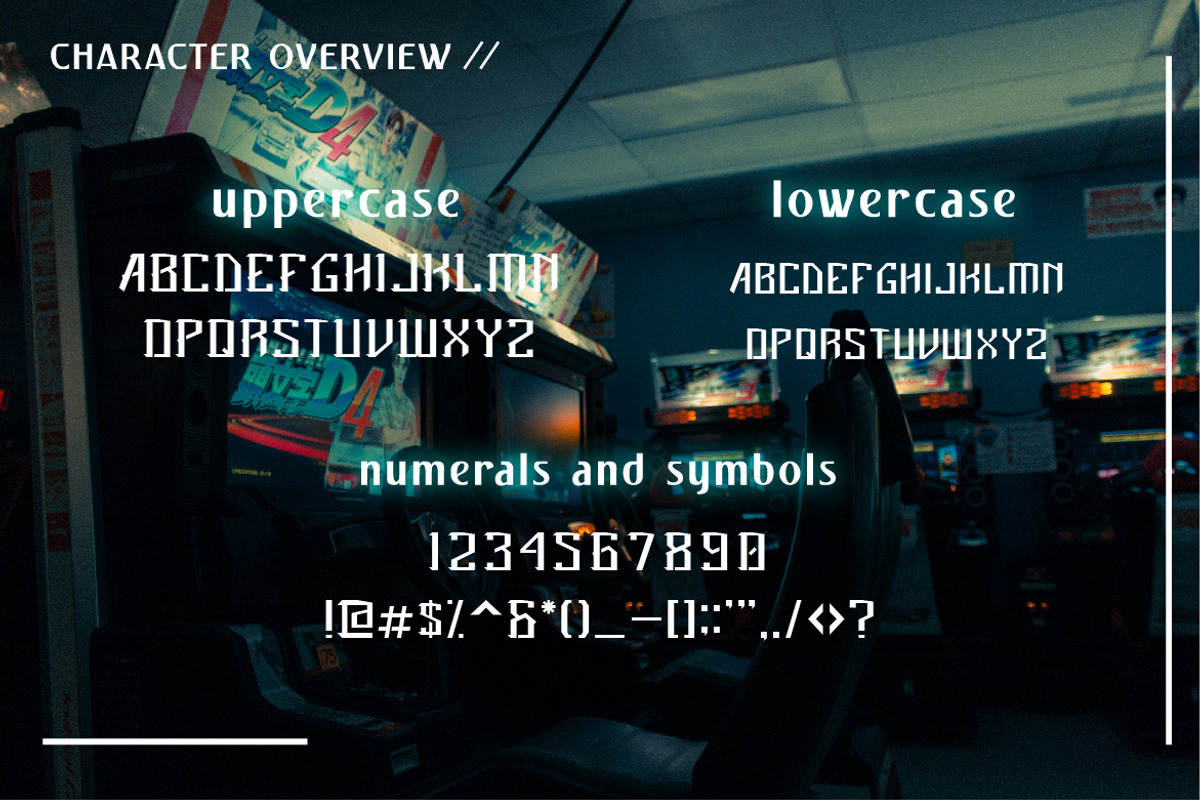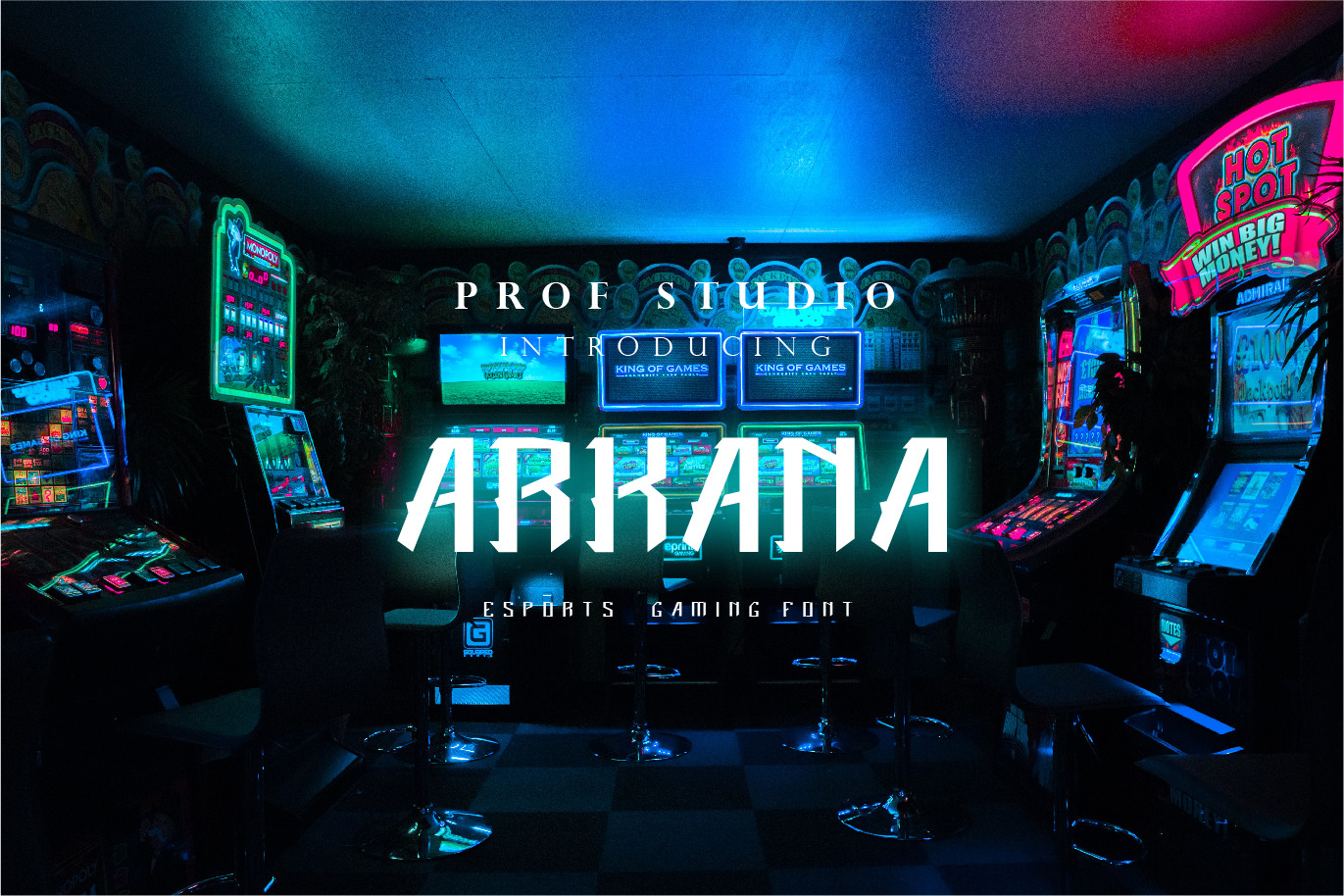
Arkana - Esports Gaming Font
Hi Ladies and Gentleman ! Proudly present Esports Gaming Font “Arkana” for your business.
Arkana - Gaming Font which can be interpreted professional. we keep this font looks Modern, Futurustic, readable, stylish, catchy and easy to use.
Arkana - is the great choice for event design ,magazine, esports logo and many other design project. Arkana here to make your work to high level!!!